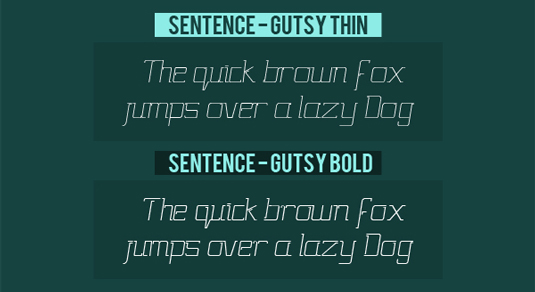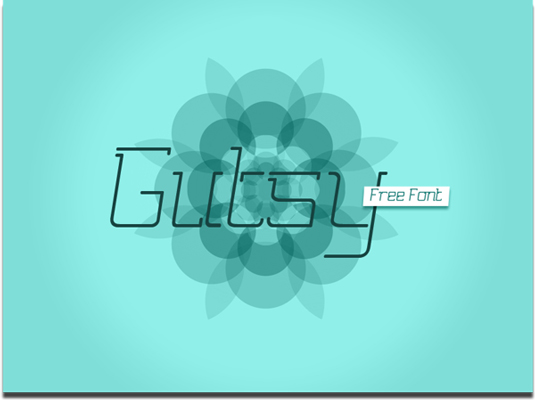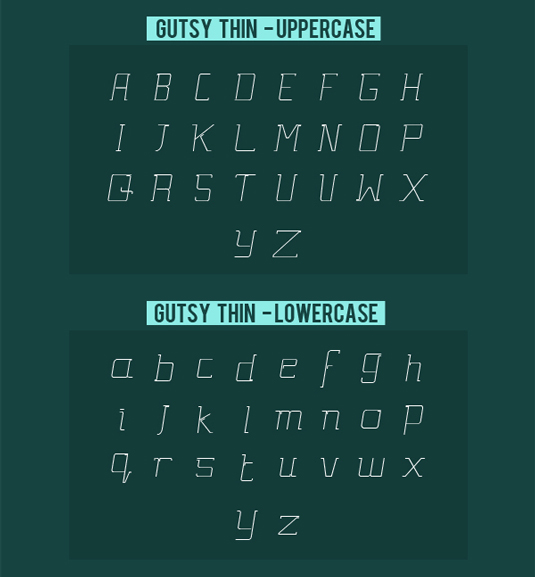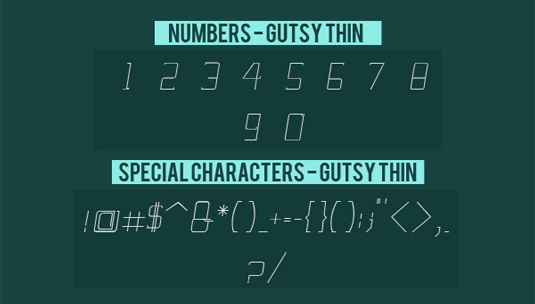
Font of the day: Gutsy
Gutsy by Taha Ahmad
Today's font of choice is Gutsy by Taha Ahmad, a young visual artist from Pakistan. "My aim while making Gutsy was to make a font with thin lines but a strong shape," he explains. "I left the shape open at some point to release the tension of alphabet. At the end this font has graceful and strong look with contemporary twist."